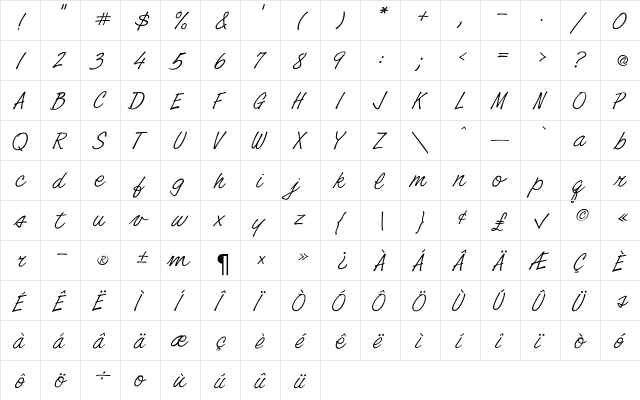
MAYRAND SCRIPT Regular Font Preview
MAYRAND SCRIPT Regular
Design Context for MAYRAND SCRIPT Typeface
MAYRAND SCRIPT flows with the natural rhythm of handwritten lettering, making it ideal for designs that call for warmth and personal expression.
Font Pairing: Combine MAYRAND SCRIPT with a simple geometric sans for maximum contrast — the tension between flowing curves and clean structure is a classic typographic pairing.
Pro Tip: Use MAYRAND SCRIPT for short runs of text — names, titles, or taglines. Extended body copy in script faces tires the eye quickly.